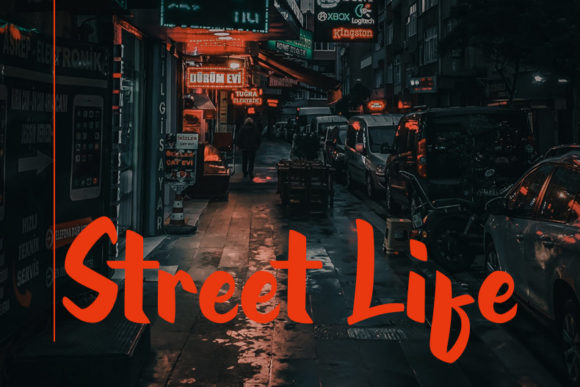
Assazinc Font
db-ku.com - Script & Handwritten -- Assassinc is a cool display font. With signature writing, this font looks natural and adaptable so it fits all your work. This font is perfect for products that emphasize a serious and sharp feel. It’s perfect for branding projects, logos, social media posts, advertisements, product designs, labels, and more.